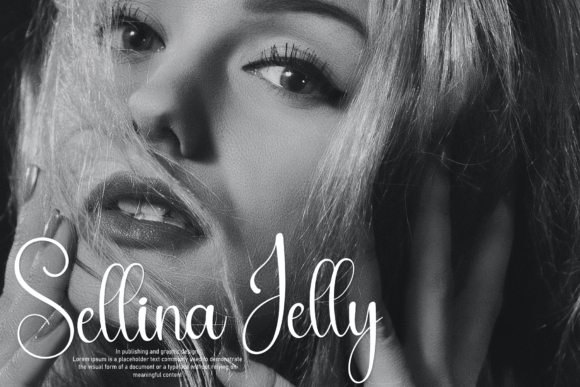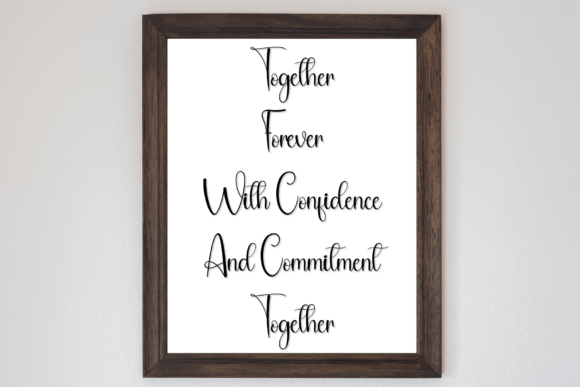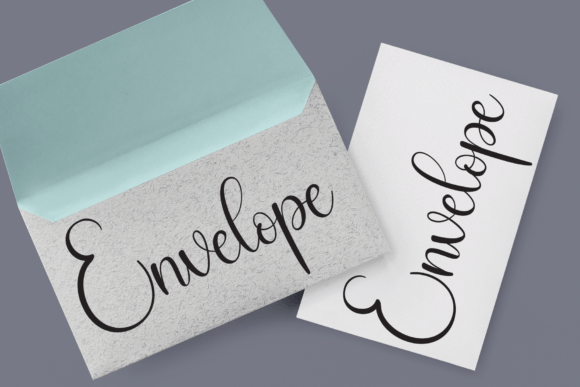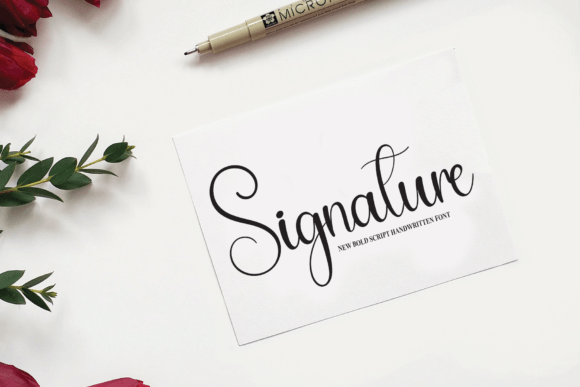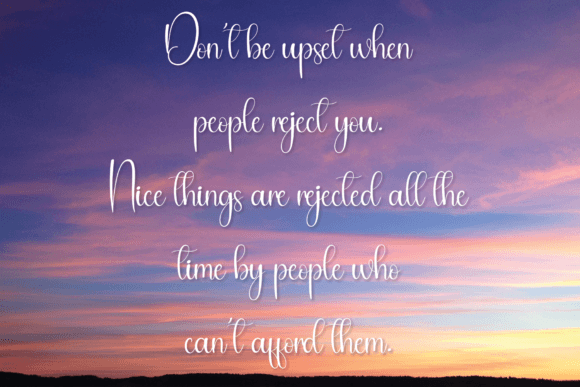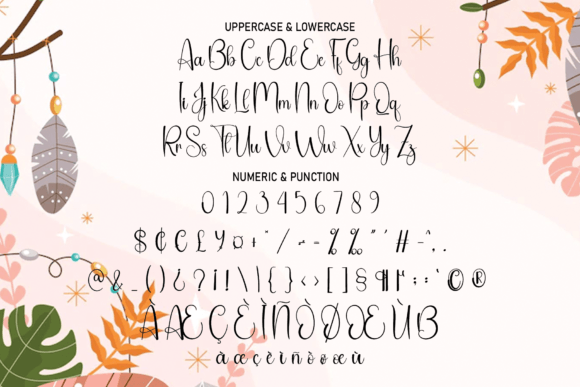
Unleashing the Magic of Handwritten Elegance
Have you ever been inspired by a beautiful handwritten note or a charming street art piece? I’m sure we all have. Those moments spark our creativity and remind us of the beauty of imperfection in design. For designers, capturing that essence can be a challenge, but with the right tools, it becomes a breeze. Enter the Boho Font, a stunning handwritten font that embodies the free-spirited nature of bohemian design.
This elegant font is more than just a stylish addition to your project; it’s a versatile tool that can elevate any design from wall displays to wedding invitations. With its sleek and modern look, the Boho Font is a valuable asset for designers looking to add a touch of personality to their work.
Key Features of Boho Font
- Font Family: Boho Font comes in 6 font styles, including Regular, Italic, Bold, Bold Italic, Script, and Script Italic.
- Unique Characteristics: The font features a bohemian-inspired design with intricate, hand-drawn elements and a mix of modern and vintage feel.
- Language Support: The font includes support for multiple languages, including Latin, Cyrillic, and Greek alphabets.
Boho Font Review
As a designer, I was excited to try out the Boho Font. I’ve seen it used in various design projects and was eager to see if it would live up to its reputation. Here’s my honest review:
- Unique charm: Boho Font has a distinctive, eclectic feel that adds a touch of personality to any design project.
- Large character set: Boho Font includes a wide range of characters, including international characters, which makes it a great choice for designers who work with diverse audiences.
- Readability issues: Some characters, particularly the lowercase letters, can be difficult to read, especially at smaller font sizes.
- Not suitable for formal designs: Due to its bohemian vibe, Boho Font may not be the best choice for formal or professional designs, such as business reports or academic papers.
Overall, I think Boho Font is a great choice for designers who want to add a touch of whimsy and personality to their projects. However, it may not be the best fit for every design task, and designers should be aware of its limitations.
Getting the Most Out of Boho Font
To get the most out of Boho font, use it in conjunction with other decorative fonts and elements to create a unique and eye-catching design.
Experiment with different font sizes, colors, and styles to create visual interest and balance.
Boho font is commonly used in:
- Food and drink branding
- Home decor and furniture design
- Travel and adventure branding